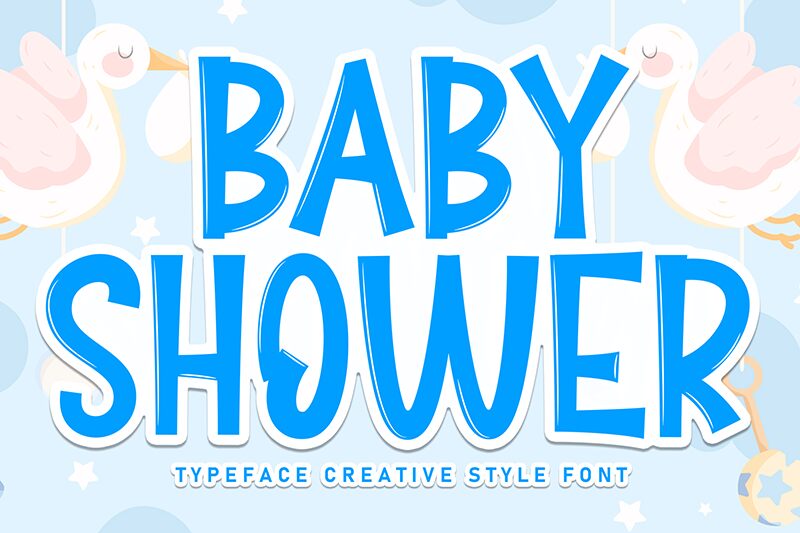
Baby Shower
Baby Shower font by Scratchones is a relaxed display typeface with an informal character. Casual, organic, and playful, the font is built on rounded silhouettes of uniform thickness; which contributes to its friendly outlook. The font’s letters are widely spread and seem to inhabit generous virtual spaces allowing them to ‘breathe easily’ in their respective layout.
A free comic display font, Baby Shower’s casual aesthetics makes it most suitable for child-centric projects such as children-related books, covers, and posters as well as trendy onboarding pages of websites with young adult target audiences. Other applications include body care packaging (soaps & lotions), apps, ebooks covers, etc.